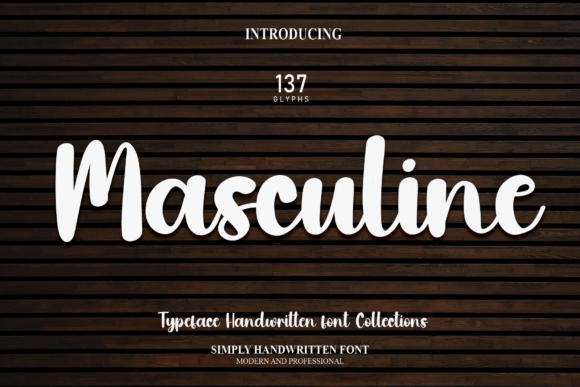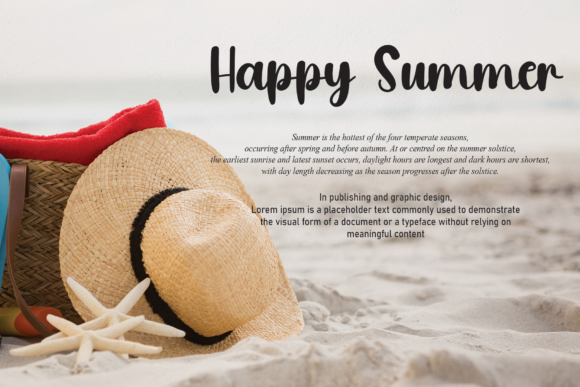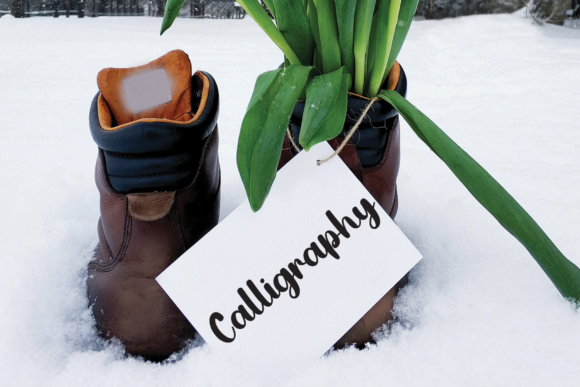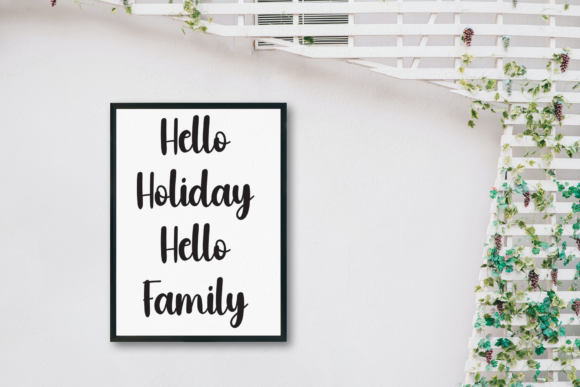
About Masculine Font
Masculine is a sophisticated and stylish handwritten font that effortlessly blends trendiness with timeless charm. Its unique combination of chic elegance and masculine undertones makes it an ideal choice for a wide range of design projects, particularly those that require a touch of romance and personalization.
One of the standout features of Masculine is its versatility. While its name suggests a focus on a more masculine aesthetic, the font’s delicate and joyful qualities make it equally suitable for a variety of design applications, including writing wedding invitations, creating cards, and adding a romantic and personalized touch to various projects.
The font’s trendy and chic appearance sets the stage for contemporary design concepts. Its carefully crafted characters exhibit a sense of modernity, making it a perfect fit for creating stylish and eye-catching wedding invitations. Whether it’s a formal black-tie affair or an intimate outdoor celebration, Masculine adds a touch of sophistication and allure to your invitation design.
Masculine’s handwritten nature evokes a sense of intimacy and connection. This makes it an excellent choice for crafting heartfelt cards that convey messages of love, appreciation, or congratulations. Its dainty and joyful qualities create a warm and inviting atmosphere that resonates with recipients, making your sentiments even more memorable.
When used in digital design, Masculine brings a unique charm to social media posts, blog graphics, and website elements. Its ability to infuse a personalized touch into digital spaces helps create a genuine and relatable connection with your audience. Whether you’re sharing romantic quotes, relationship advice, or showcasing products or services, Masculine adds a layer of authenticity that resonates.
Beyond romantic occasions, Masculine’s chic and trendy aesthetic lends itself well to branding and logo design. It can be utilized to create distinctive and memorable logos that embody your brand’s values and personality. Whether your brand caters to a masculine or unisex audience, Masculine’s versatility allows it to adapt and enhance your brand identity.
In summary, Masculine is a trendy and chic handwritten font that combines sophistication with joyful delicacy. Its ability to evoke both modernity and romance makes it a valuable asset for a wide array of design projects, including wedding invitations, cards, and branding materials. By incorporating Masculine into your designs, you’ll infuse them with a sense of style, intimacy, and charm that captures the essence of your message.